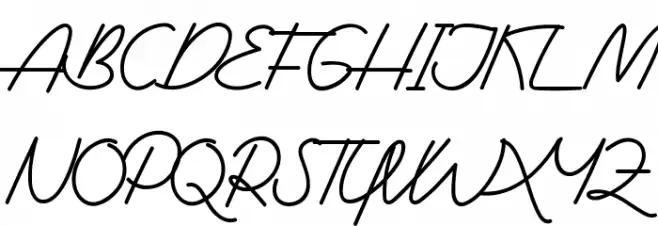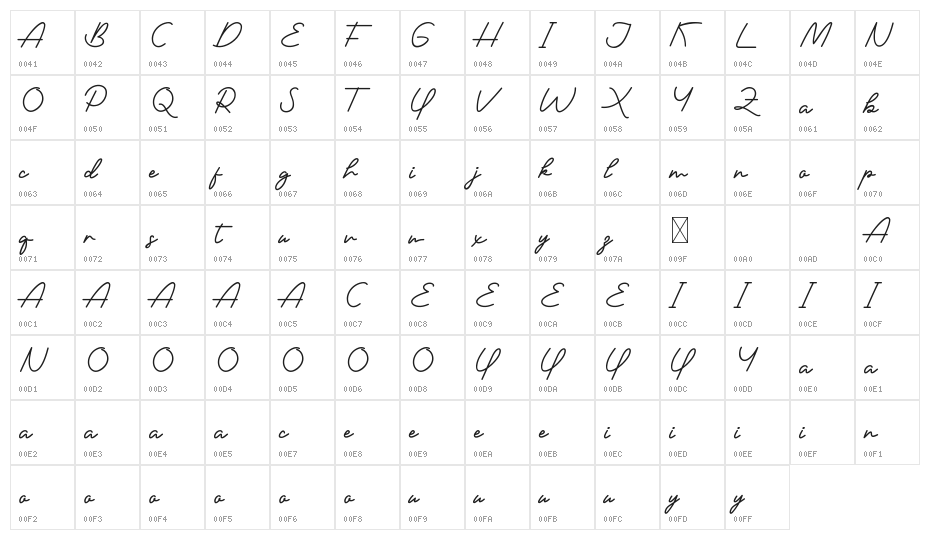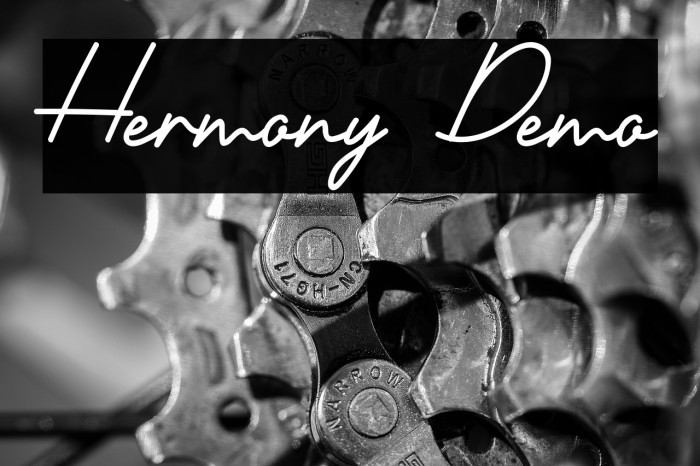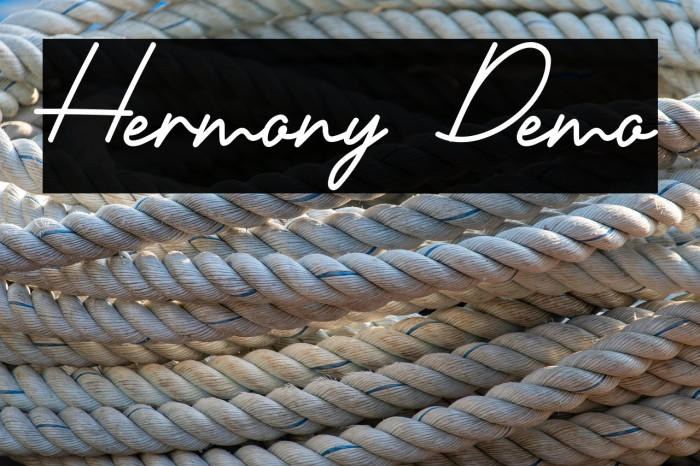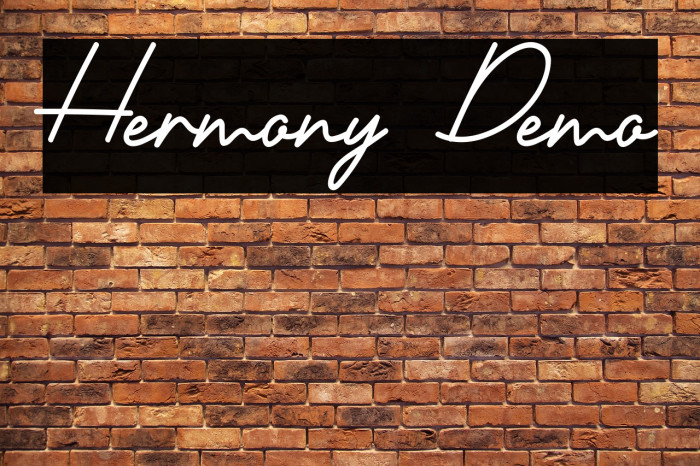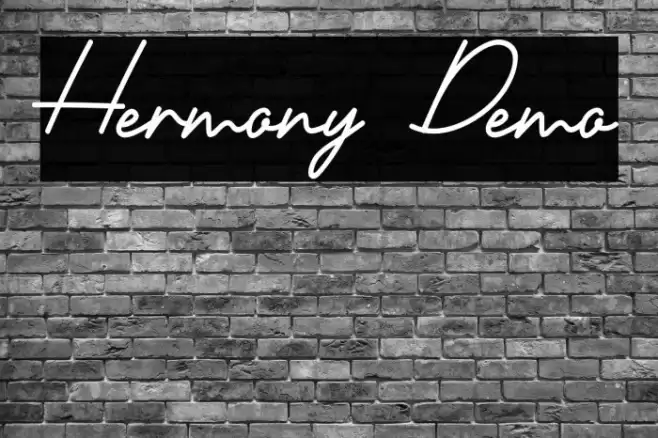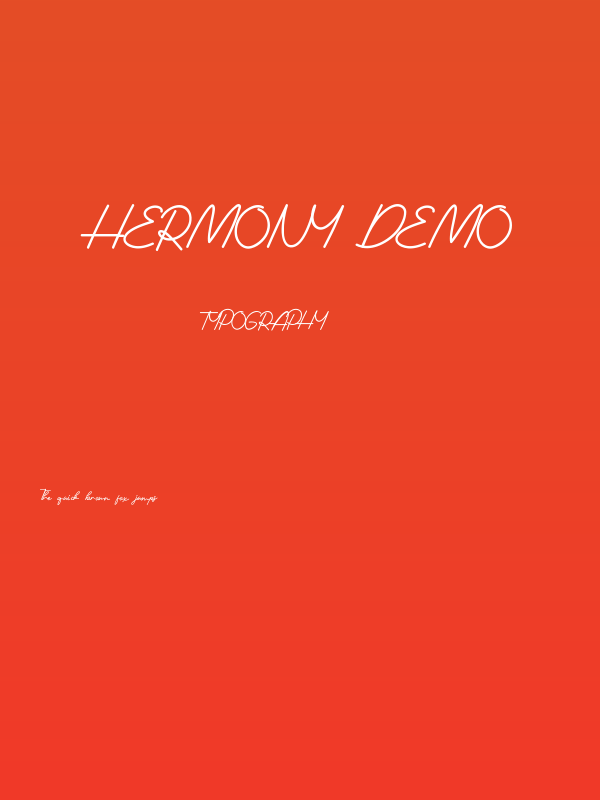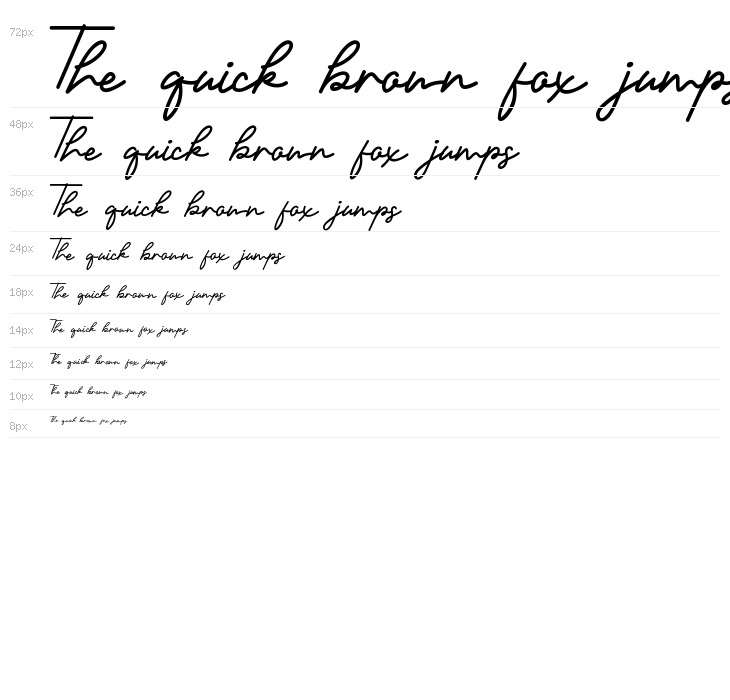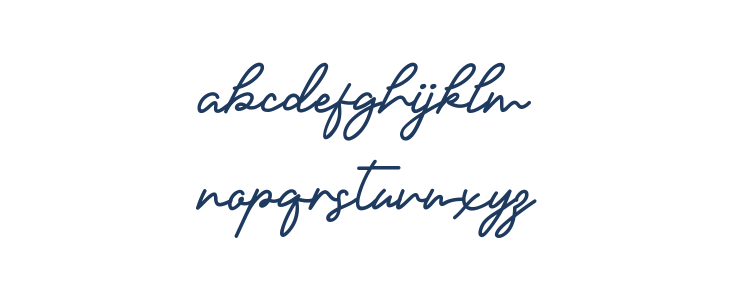
Hermony Demo Font
Hermony Demo Description
This elegant script font features a flowing, cursive style with smooth, connected strokes that emulate the fluidity of handwriting. The uppercase letters are tall and slightly slanted, adding a touch of sophistication and grace. The lowercase letters maintain a consistent flow, with loops and curves that enhance the overall aesthetic. The font's design is both stylish and legible, making it suitable for a variety of applications. It exudes a sense of elegance and charm, perfect for projects that require a personal or artistic touch. The characters are well-spaced, ensuring readability while maintaining the script's natural flow.